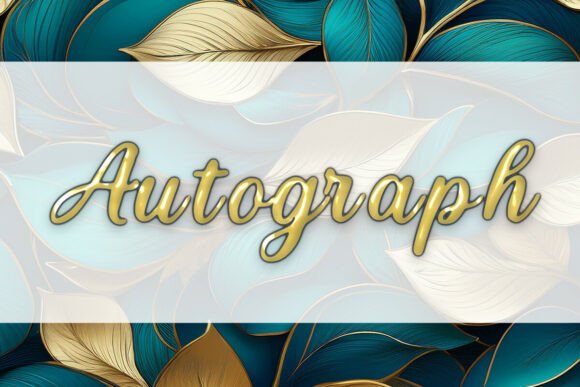
Introducing Autograph Font: The Ultimate Lettering Solution for Designers and Crafters
In the world of design, a signature touch can make all the difference. Whether you’re a professional designer, crafter, or social media influencer, having a unique and versatile font at your disposal can elevate your creative projects to the next level. This is where the Autograph font comes in – a game-changing lettering solution that’s tailored towards an array of design needs.
What is Autograph Font?
Autograph font is a carefully crafted typeface designed to bring a touch of elegance and sophistication to your designs. Its versatile style makes it perfect for a wide range of applications, from branding and magazine layouts to t-shirts, stickers, and social media content. With its unique twist of creativity, Autograph font is an essential tool for every design arsenal.
Perfect for T-Shirts and Stickers
When it comes to designing custom t-shirts and stickers, the right font can make all the difference. Autograph font is specifically designed to give your designs a signature touch that’s sure to turn heads. Its bold and elegant style ensures that your message stands out, making it perfect for designers and crafters who want to create eye-catching apparel and accessories.
Elevate Your Branding Game
Branding is all about creating a consistent visual identity that resonates with your target audience. Autograph font is designed to help you achieve this goal. Its versatile style can be used across various platforms, from business cards and brochures to website headers and social media graphics. With Autograph font, you can create a cohesive brand image that exudes professionalism and sophistication.
Magazine Layouts and Greeting Card Designs
Autograph font is also perfect for magazine layouts and greeting card designs. Its compatibility with SVG files makes it easy to use with cutting machines like Cricut, allowing you to create intricate designs and custom shapes. Whether you’re designing a birthday card or a feature article, Autograph font adds a touch of elegance and sophistication to your work.
Cricut Projects and Crafting
Cricut enthusiasts, rejoice! Autograph font is a favorite among crafters and makers who use Cricut machines. Its adaptability and compatibility with SVG files make it easy to cut out custom shapes and designs. From paper crafting to vinyl cutting, Autograph font is the perfect companion for your Cricut projects.
Attention-Grabbing Posters and Social Media Content
Autograph font is also designed to help you create attention-grabbing posters and social media content. Its bold and elegant style ensures that your message stands out in a crowded feed. Whether you’re promoting an event, product, or service, Autograph font adds an aesthetic appeal to your designs that’s sure to engage your audience.
Why Choose Autograph Font?
So, why should you choose Autograph font for your design needs? Here are just a few reasons:
- Versatility: Autograph font can be used across various platforms and design applications.
- Elegance: Its bold and elegant style adds a touch of sophistication to your designs.
- Adaptability: Autograph font is compatible with SVG files and works seamlessly with Cricut machines.
- Creativity: Autograph font offers a unique twist of creativity that’s sure to elevate your designs.
In conclusion, Autograph font is the ultimate lettering solution for designers and crafters who want to add a signature touch to their creative projects. Its versatility, elegance, and adaptability make it perfect for a wide range of design applications. Whether you’re designing t-shirts, stickers, posters, or social media content, Autograph font is a must-have tool for every design arsenal. So why wait? Get creative with Autograph font today and take your designs to the next level!